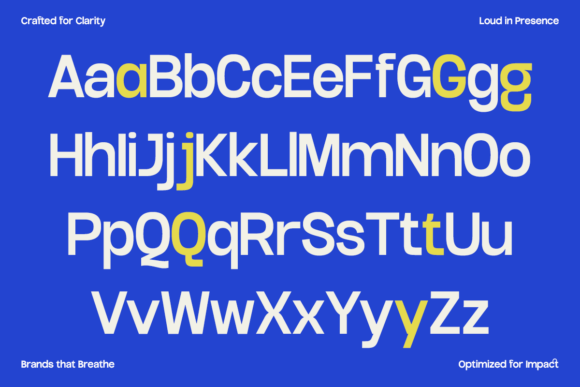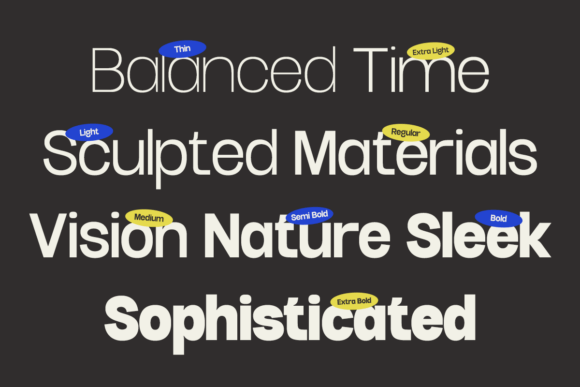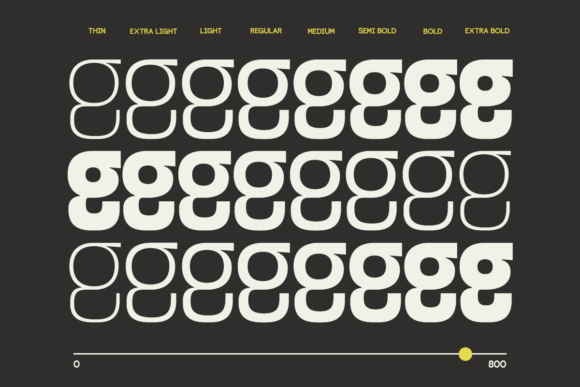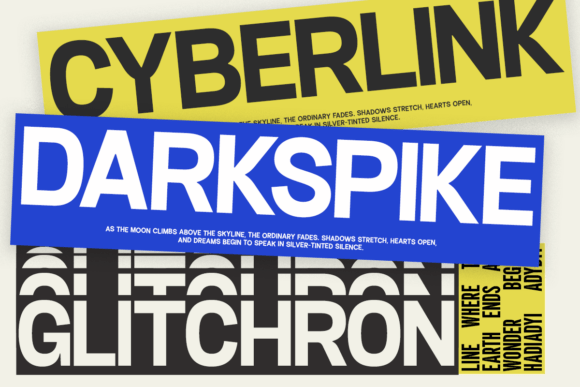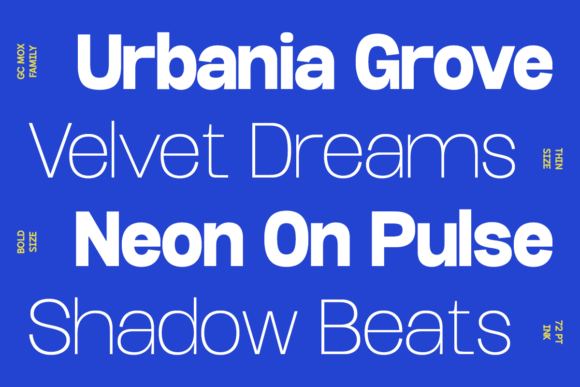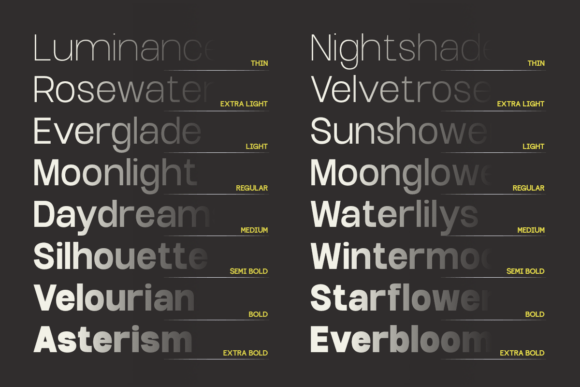
Unleashing Creative Potential with GC MOX Extrabold Font
Have you ever been in the midst of a design project, pouring your heart and soul into it, only to hit a roadblock when searching for the perfect font? I recall a particularly frustrating experience when a client requested a bold, yet playful typography for their branding campaign. After hours of scouring through font libraries, I stumbled upon GC MOX – a game-changing variable sans typeface that has since become a staple in my design toolkit.
A First Impression: What Makes GC MOX Stand Out
GC MOX is not just any font; it’s a dynamic and bold variable sans typeface designed to make a statement. Its powerful weight, playful flexibility, and strong geometric shapes make it perfect for a wide range of applications, from branding and posters to digital campaigns, packaging, motion graphics, and editorial design.
Here’s what I love about GC MOX:
- ✨ Versatility: GC MOX offers adjustable variable styles, allowing designers to adapt the typography to fit any creative direction.
- ✅ Readability: Its wide proportions ensure that the text remains clear and legible, even at smaller sizes.
- 🔥 Energy: The font exudes a vibrant, energetic feel that’s perfect for brands looking to make a bold statement.
- 🎨 Creative Freedom: With its PUA encoding, accessing glyphs, swashes, and alternate characters is effortless, giving designers the freedom to experiment.
And a few quirks to keep in mind:
- 🤔 Learning Curve: For those new to variable fonts or OpenType features, there might be a slight learning curve to fully leverage GC MOX’s capabilities.
The Story Behind GC MOX: Designer Inspiration
GC MOX was designed with the goal of creating a versatile and dynamic typeface that could cater to the diverse needs of modern designers. Inspired by the geometric shapes and clean lines of urban landscapes, GC MOX’s creator aimed to craft a font that embodies both strength and playfulness. The result is a typeface that not only stands out but also adapts seamlessly to various design contexts.
| What makes GC MOX unique? | GC MOX is unique due to its variable font capabilities, allowing for a wide range of weights and styles, making it highly versatile for different design projects. |
| Is GC MOX suitable for body text? | While GC MOX is bold and dynamic, it’s primarily designed for headings and titles. For body text, consider using a font with better readability at smaller sizes. |
| Does GC MOX support OpenType features? | Yes, GC MOX supports OpenType features, including glyphs, swashes, and stylistic alternates, accessible through compatible design software. |